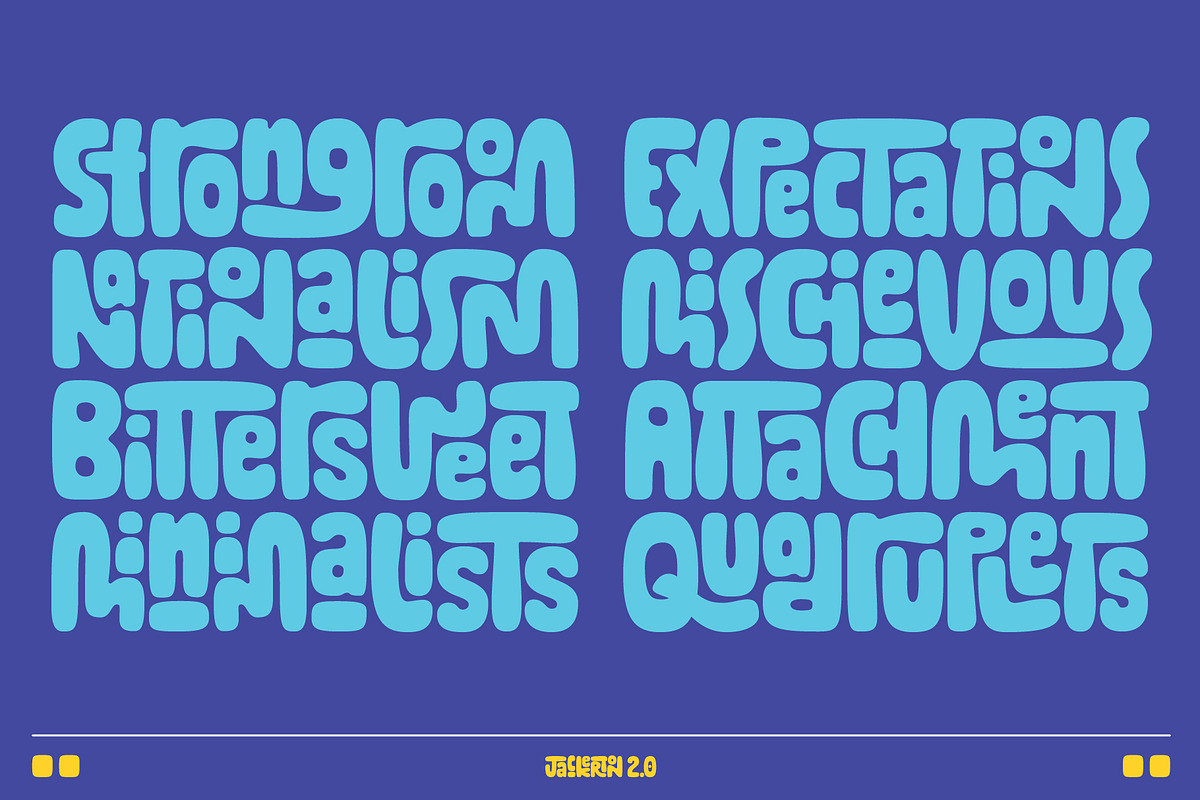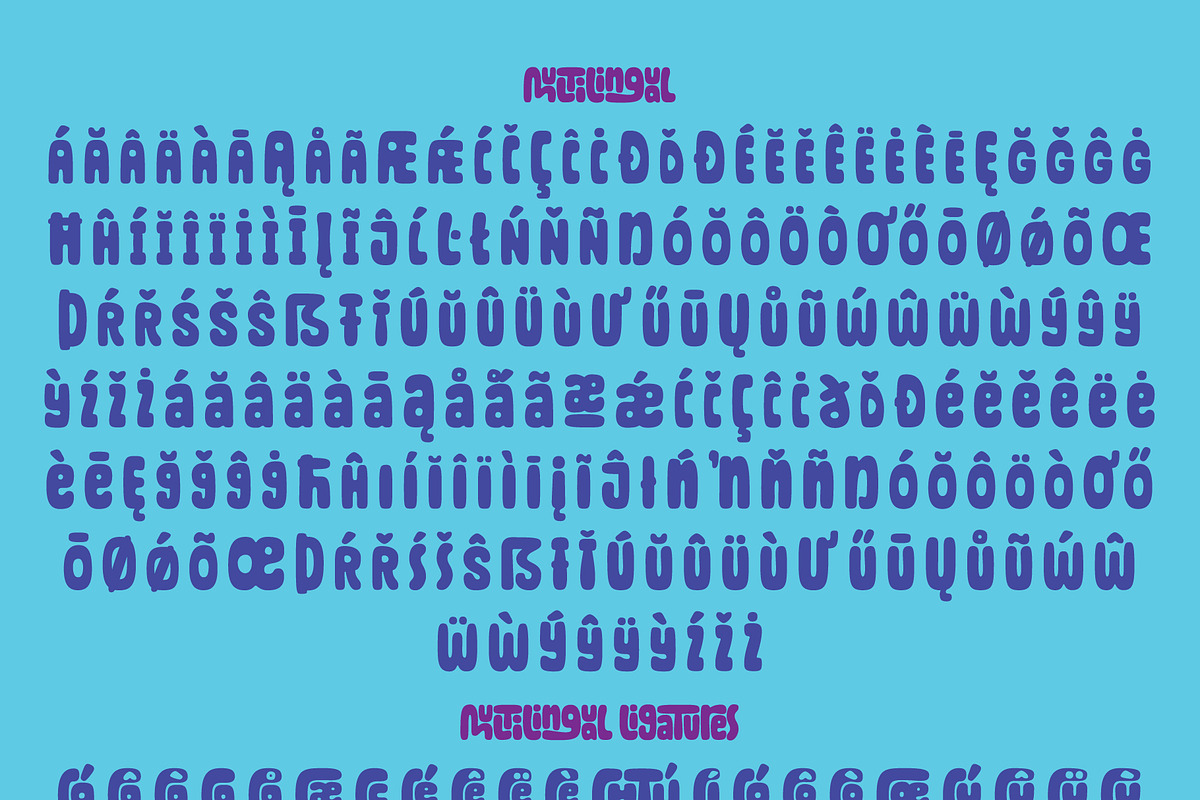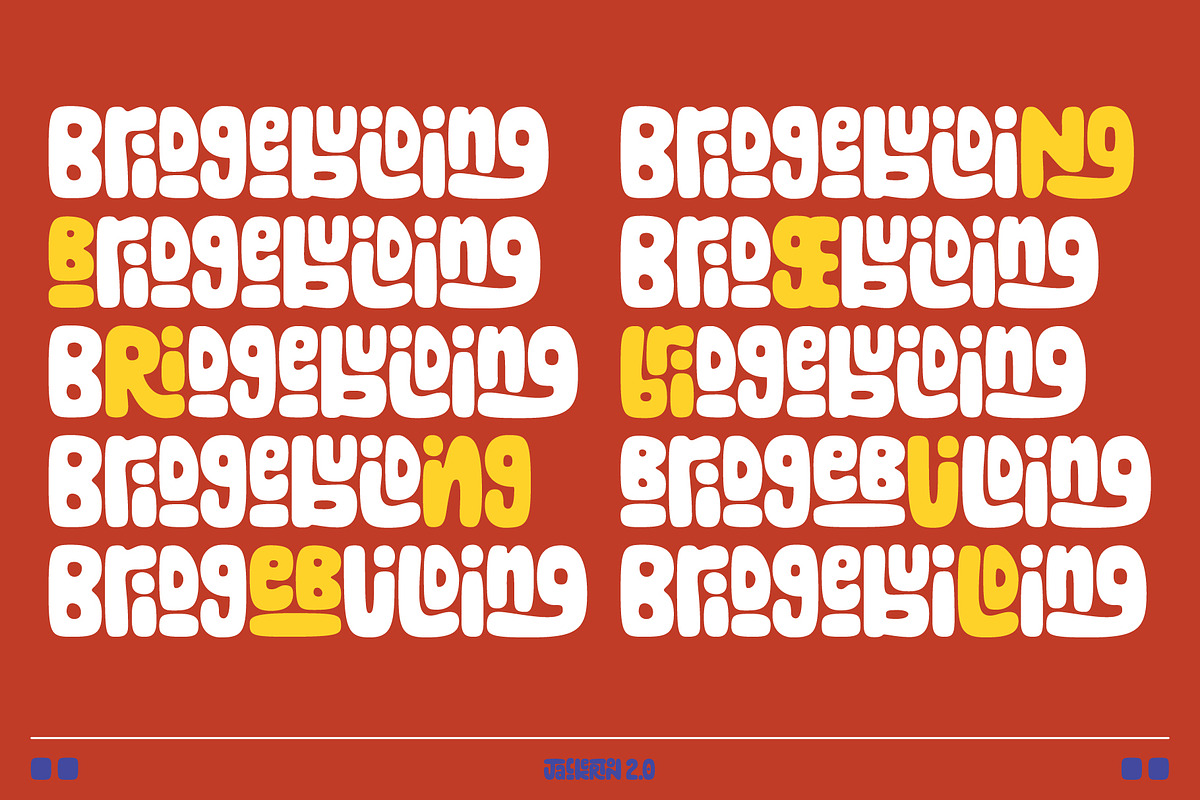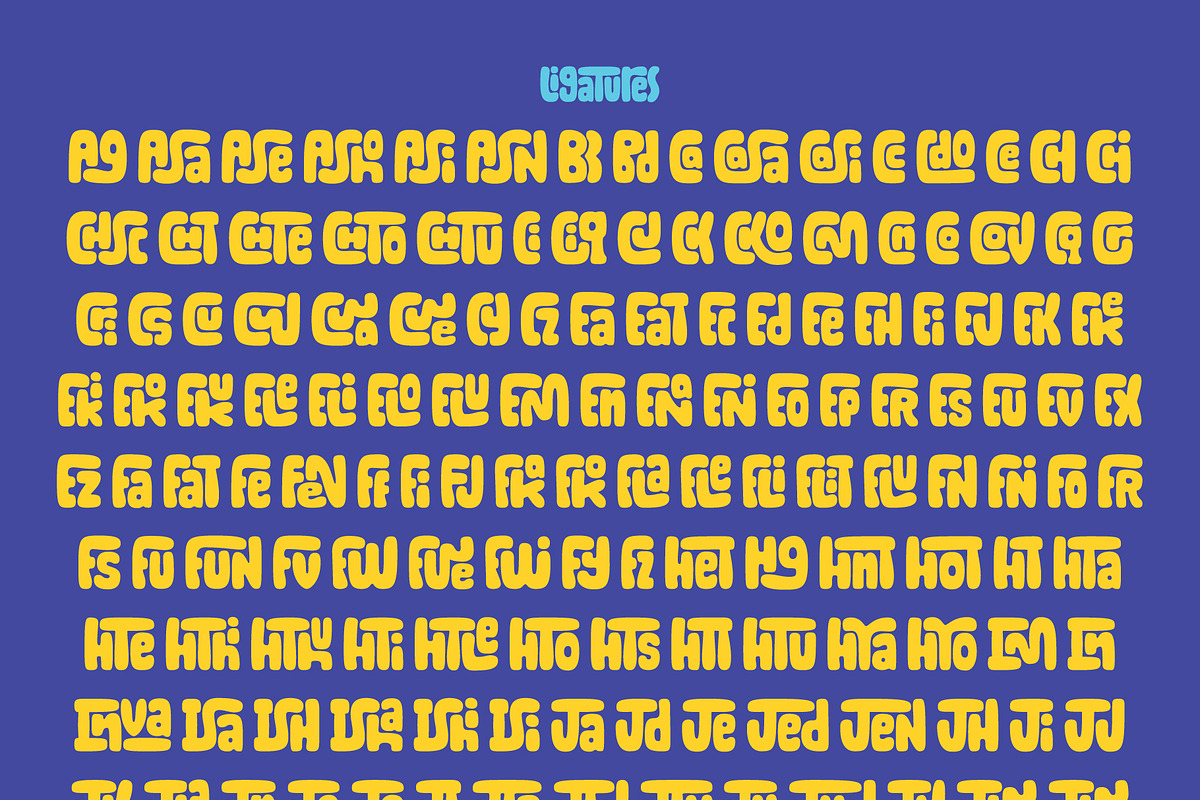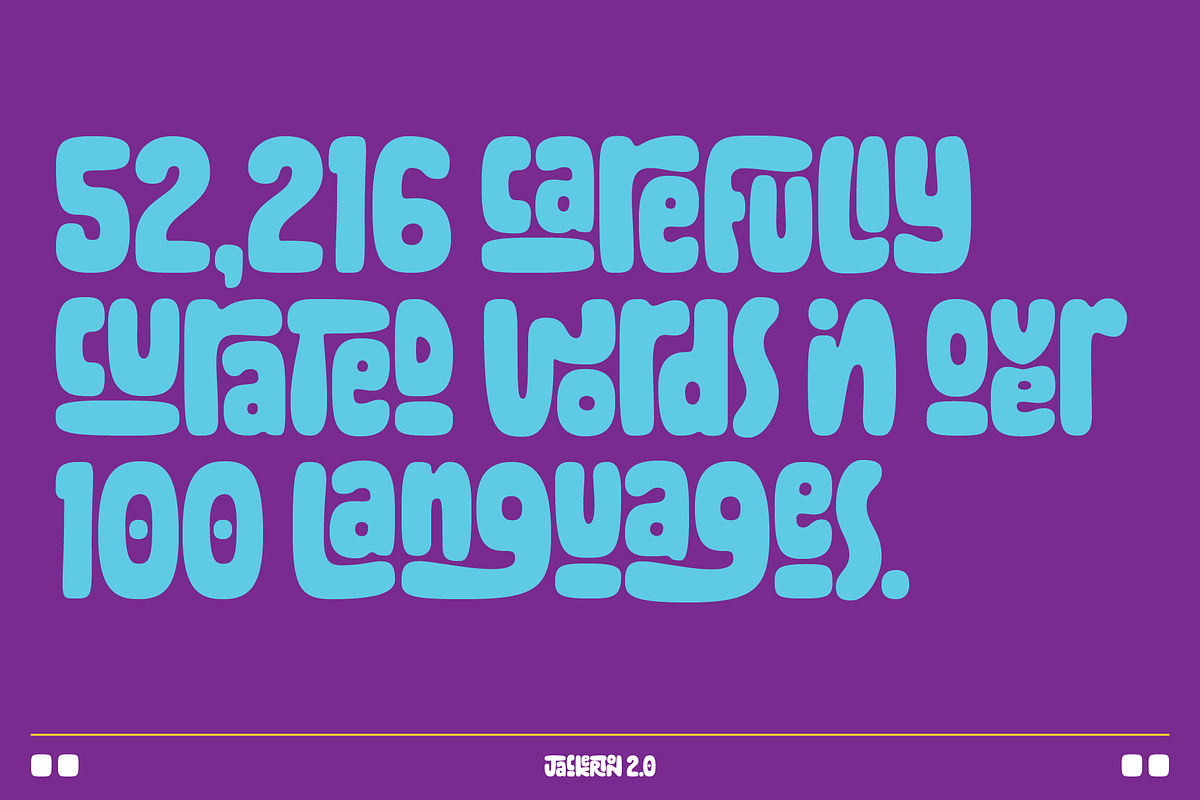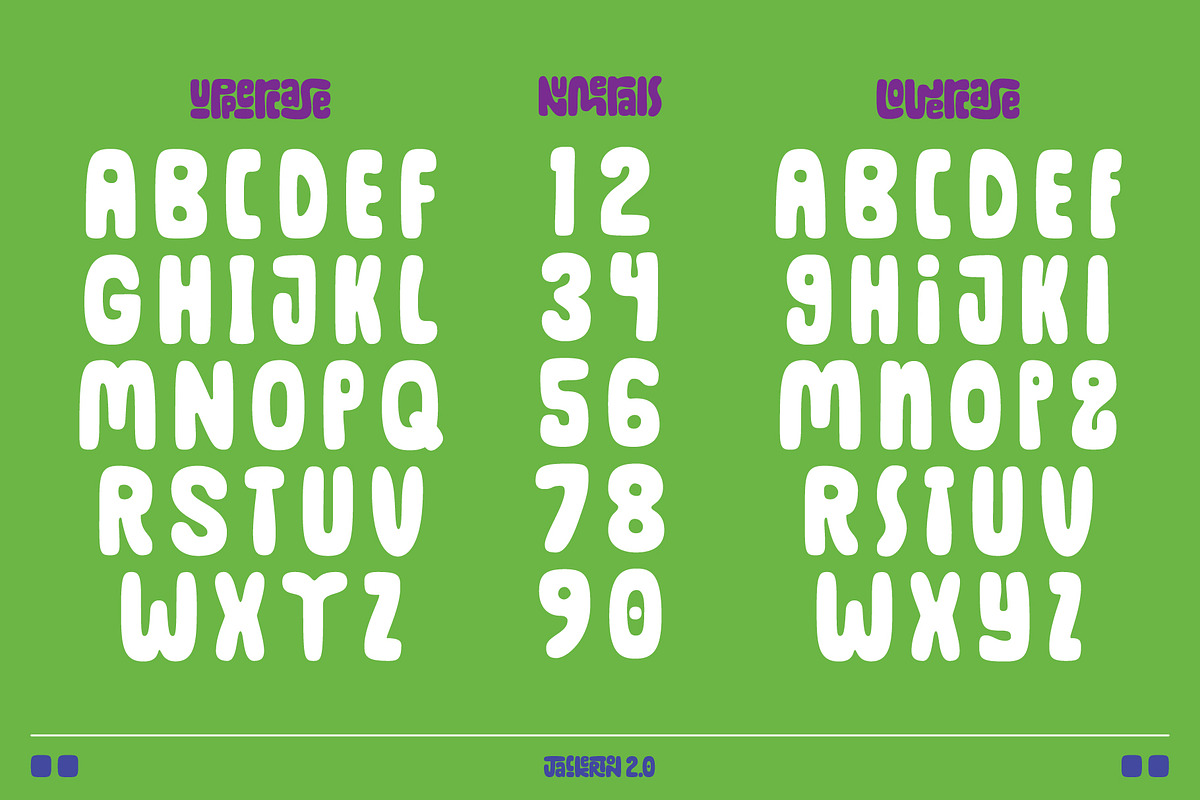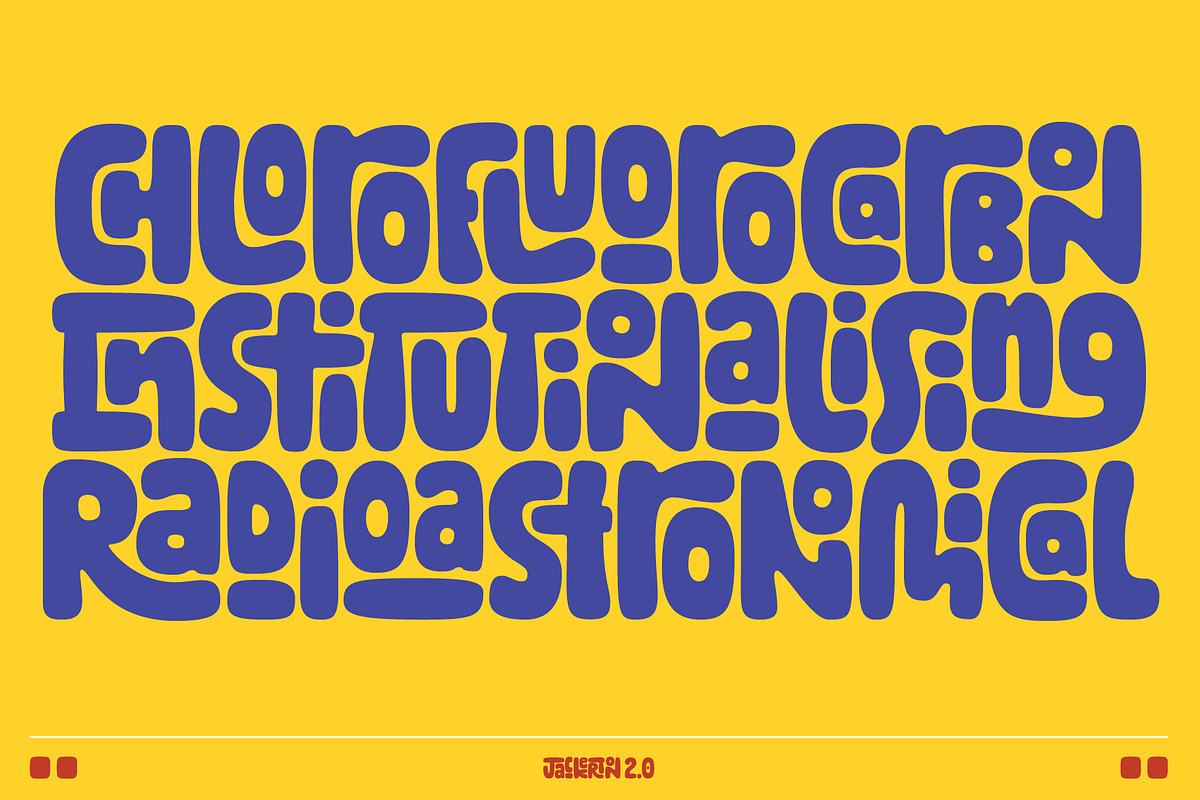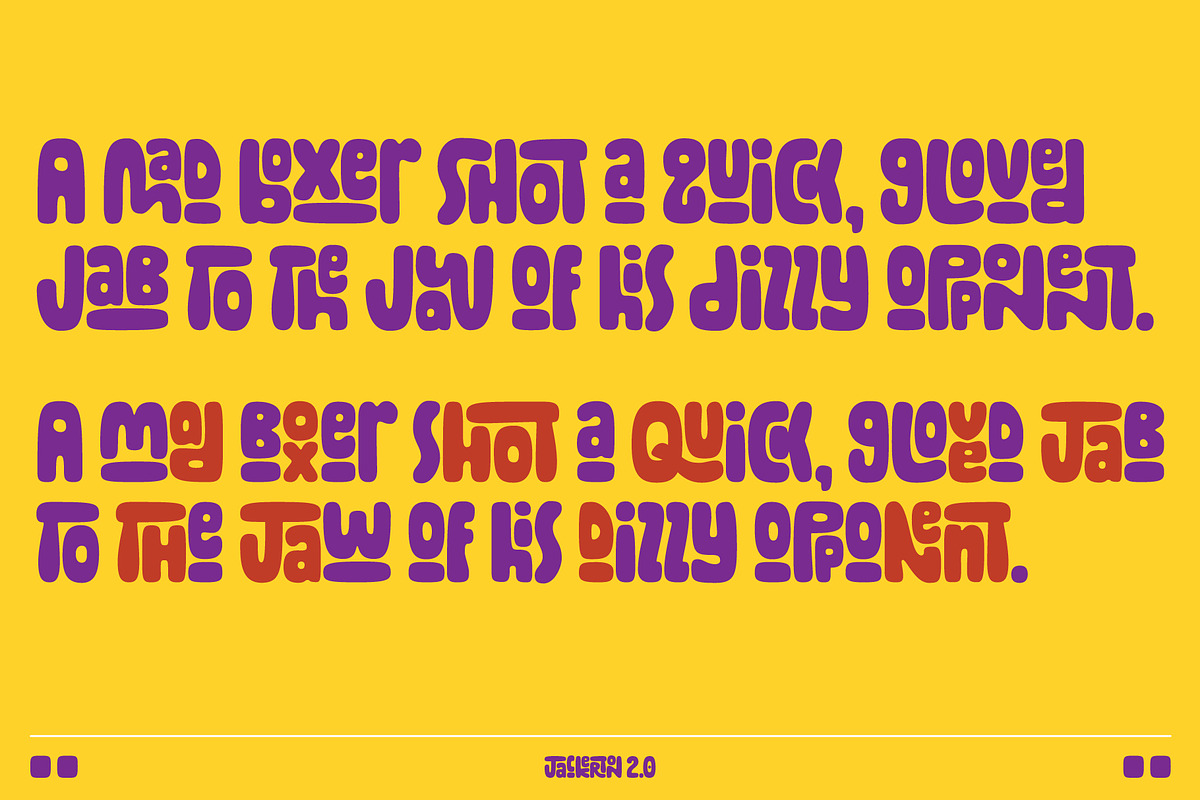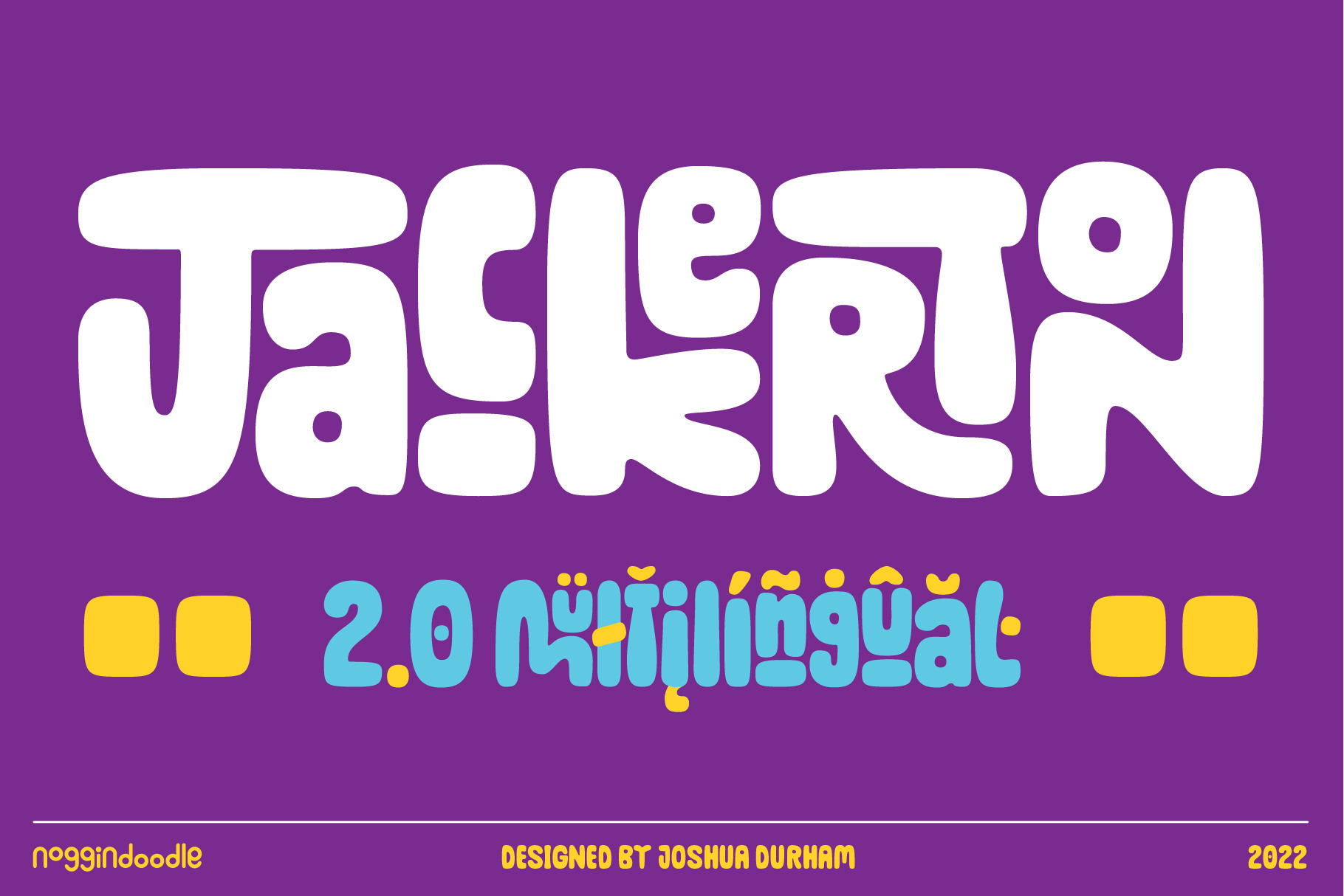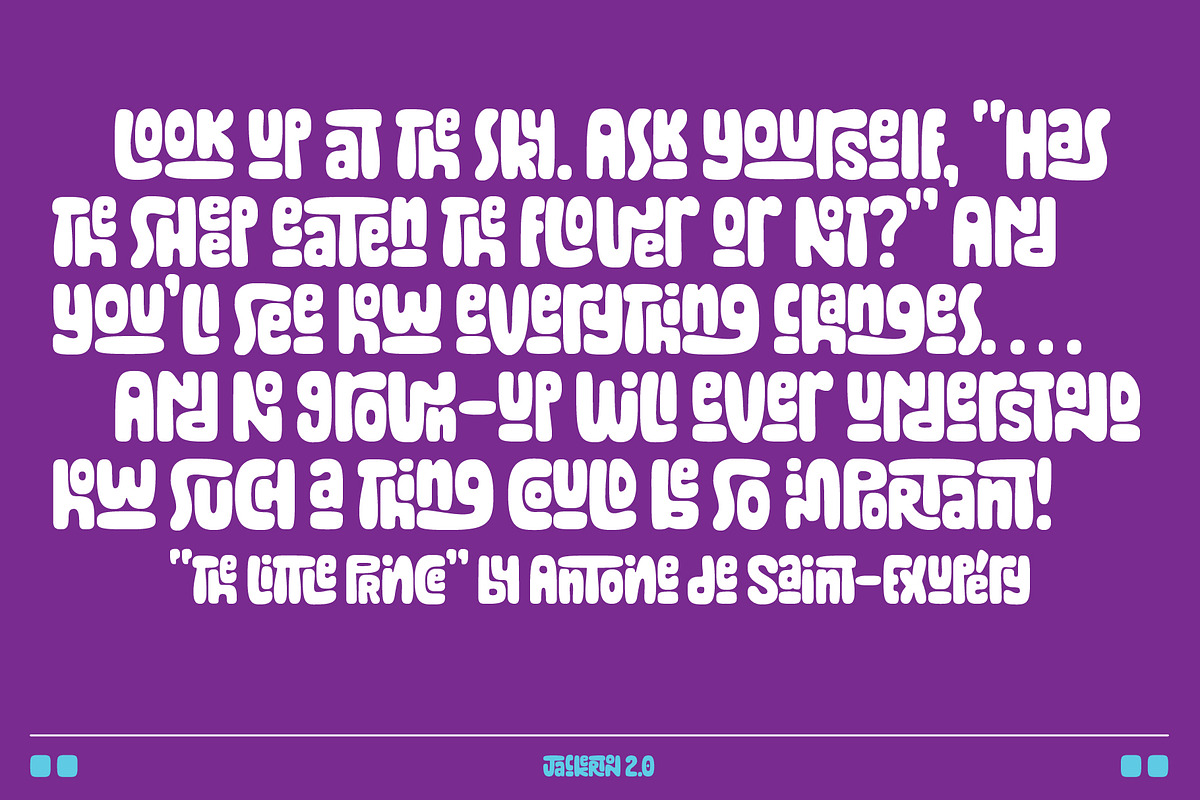
Jackerton Font
Jackerton is a playful, child-like typeface inspired by my father's doodles. Every word is a puzzle with pieces changing and shifting as you type.
- All 348 original glyphs have been completely redrawn from the ground up with smoother curves and consistent widths throughout.
- 2,425 new glyphs have been added.
- Multilingual support for over 100 Latin-based languages. A whole bunch of creative license has been taken with the diacritics. I am an English speaker. If anything in your language is inadvertently unusable or offensive, please let me know so I may work those changes into a future update.
- I have spent innumerable hours scrutinizing over 50,000 words in over 100 languages to make sure each combination of letters fits together precisely. Please let me know if you come across words that look wonky.
I never give reviews but this is just the cutest and most perfect font. I'm putting it on all of my pottery as a label. It is the perfect balance of legibility + fun and exactly what I have been searching for. I appreciate how many ligatures there are. Thank you for making and sharing this!